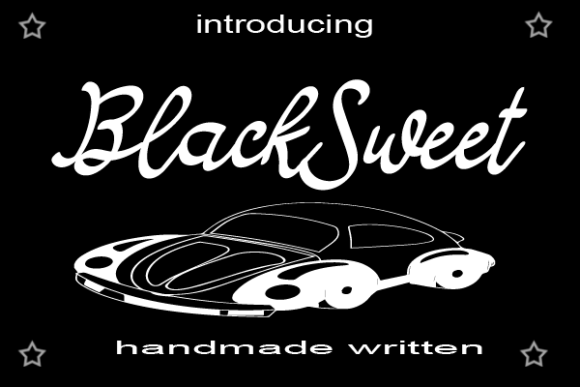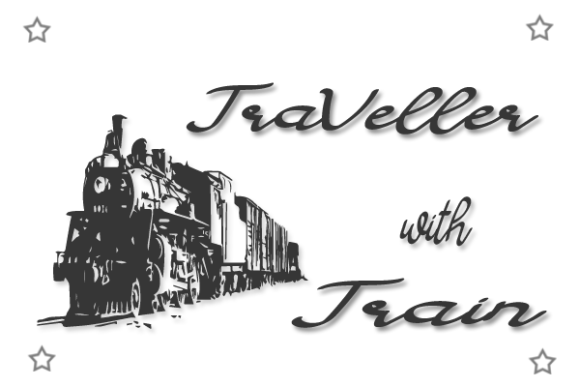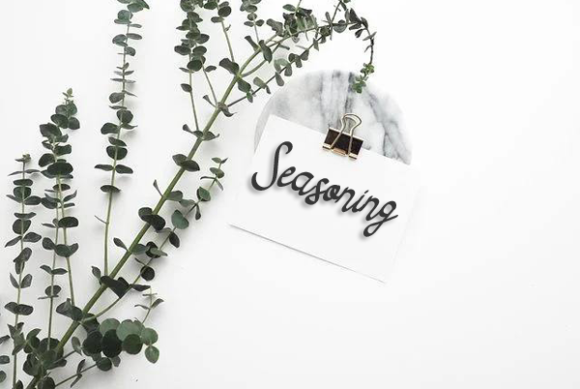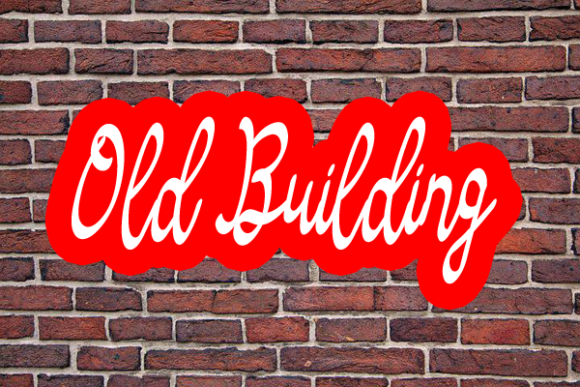
Blacksweet Font
About Blacksweet Font
Blacksweet is a dainty and flowing handwritten font.
Sweet and joyful, this font will be ideal for writing wedding invitations, cards or any other design that may need a romantic, personalized touch!